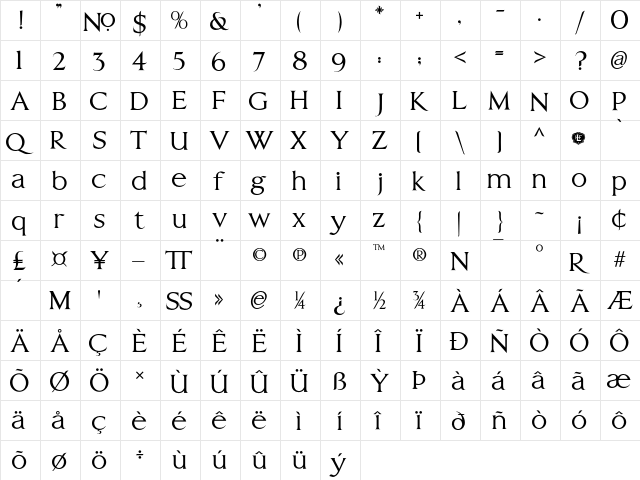
LHFEssendine Regular
Design Context for LHFEssendine Typeface
LHFEssendine is a composed and adaptable typeface that performs quietly and consistently across a wide range of design contexts.